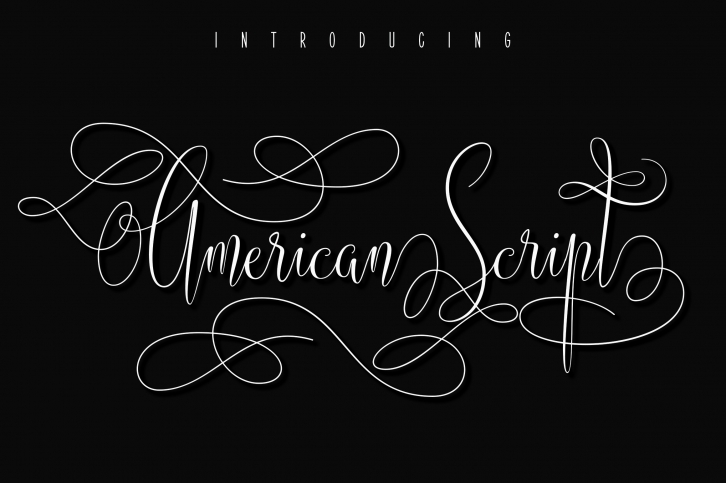
American Script is a trendy and unique font with an authentic style. It was designed by Royaltype and it's a great choice for creative people who need such a font. It was released on February 21, 2017 and the file size is 6.79 MB. American Script will add an organic vibe to any design idea!